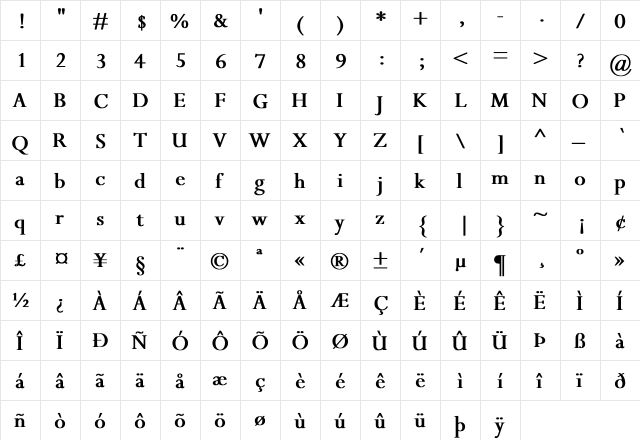
Perpetua Bold Bold
Design Context for Perpetua Bold Typeface
Perpetua Bold is a composed and adaptable typeface that performs quietly and consistently across a wide range of design contexts. The heavy weight commands attention and anchors typographic hierarchies.